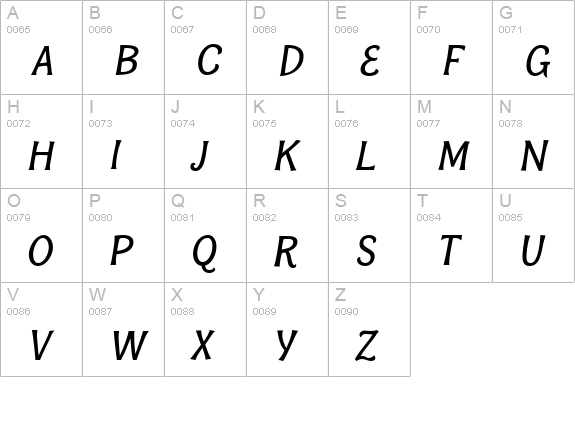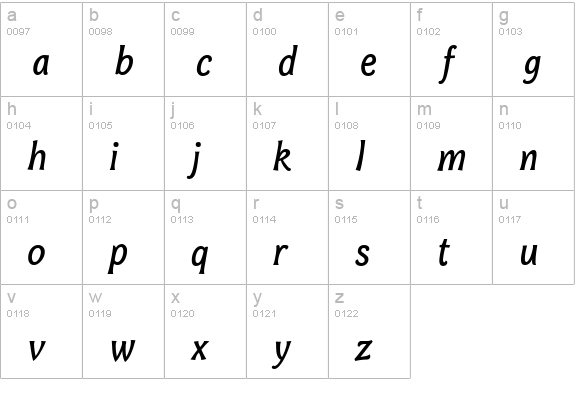
Bonobo SemiBold Italic Font Details
Bonobo SemiBold Italic is a sub-bold, structured, italic variant in the Bonobo typeface family \xE2\x80\x94 well suited to sub-headlines and emphasised passages.
Bonobo SemiBold Italic is a versatile and modern typeface that strikes the perfect balance between elegance and readability. Its slightly slanted and bold design adds a touch of sophistication to any project, making it ideal for headlines, branding, and design projects that require a strong visual impact. This font's sleek and contemporary look is perfect for conveying a sense of professionalism and style. The italicized letters add a dynamic and expressive quality to the text, making it stand out while maintaining a sense of harmony and balance. Whether used for print or digital designs, Bonobo SemiBold Italic is sure to make a bold statement. Best of all, Bonobo SemiBold Italic is available for free download at FontsMarket.com. This means that you can easily access this high-quality font without any cost, making it a valuable addition to your font collection. Don't miss out on the opportunity to enhance your designs with the elegant and modern aesthetic of Bonobo SemiBold Italic – download it today and elevate your projects to the next level.